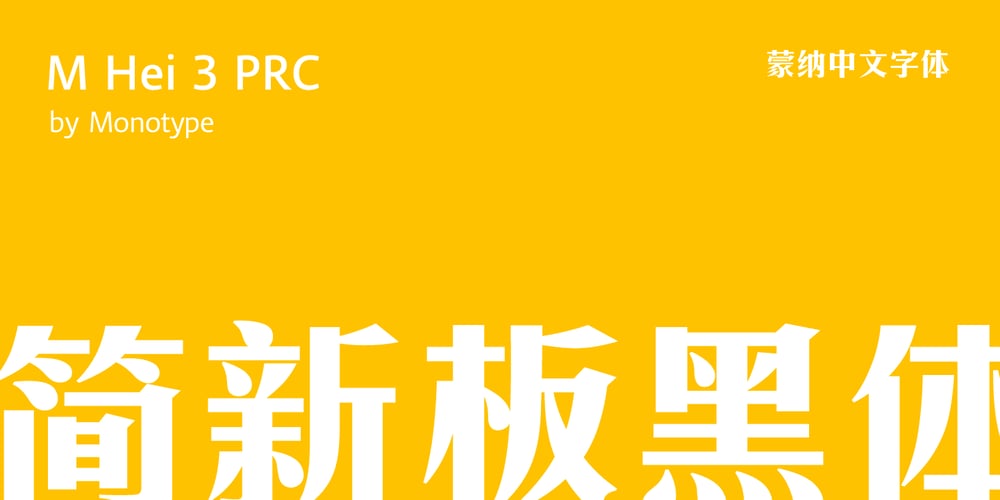
M Hei3 PRC Font Family was designed by Monotype Design Studio HK and published by Monotype HK. M Hei3 PRC contains 1 styles and family package options. Monotype Hei3 PRC is a modulated and transitional Chinese design with structure, diǎn, piē and nà carry Song style, while horizontal & vertical strokes are relatively simple. This mix of ancient and modern elements with low contrast is something that you can find in wood carving: rigid while balanced with softness